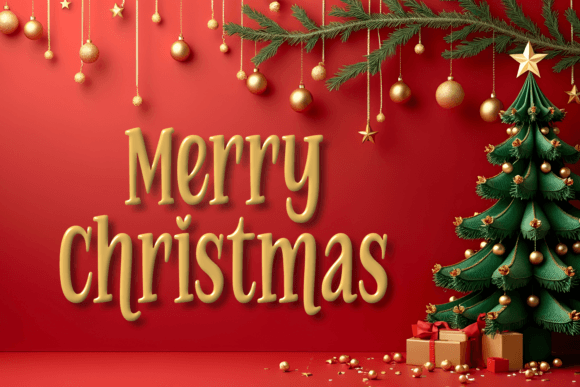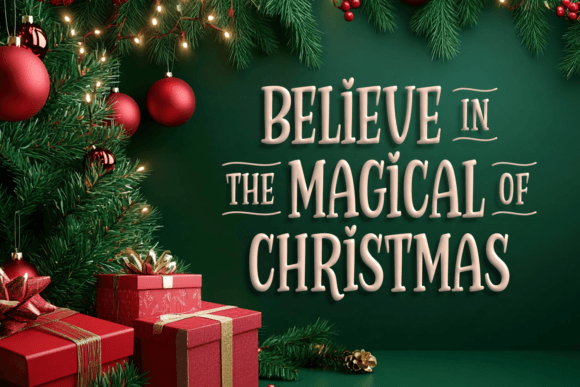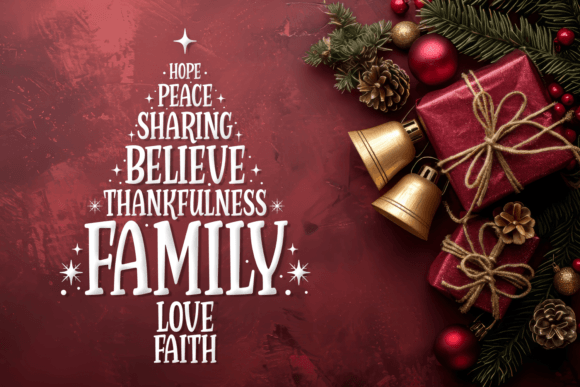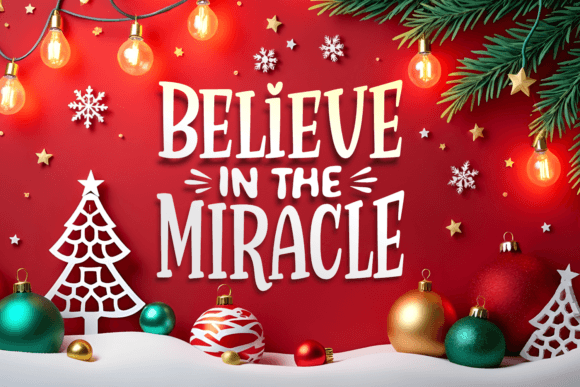
Introduction to Christmas Twinkles Font
Imagine you’re sitting by the fireplace, surrounded by twinkling lights, and a warm cup of hot cocoa in your hands. As you start designing your festive project, you stumble upon the perfect font – Christmas Twinkles Font. The moment you see its elegant, handcrafted serif design, you know that this is the perfect companion for your creative endeavor.
As a designer, you’re always on the lookout for high-quality design resources that can elevate your projects. That’s where Christmas Twinkles Font comes in – a beautifully crafted font that adds a sprinkle of joy and warmth to your creations. Whether you’re working on a heartwarming greeting card or an eye-catching headline, Christmas Twinkles Font is an indispensable design resource that’s sure to make your project stand out.
Key Features of Christmas Twinkles Font
- Unique and festive design perfect for creative projects and holiday-themed materials
- Perfect for use in digital designs, such as social media graphics, flyers, and posters, as well as print materials like invitations and cards
Honest Review: Christmas Twinkles Font
As a designer, I’m always on the lookout for high-quality design resources to elevate my creative projects. The Christmas Twinkles Font caught my attention with its playful and festive vibe. I decided to give it a try and see how it performs.
What works well: ✨ The font is super easy to use and has a transparent background, making it perfect for overlaying on top of images or other design elements. The font is also highly customizable, with a wide range of styles and sizes to choose from.
What doesn’t work so well: ⚠️ While the font is free to download, the quality is not as high as I would expect from a premium font. The characters are not as crisp and clean as I would like, and the font may not be suitable for large-scale designs or professional printing.
Overall impression: I would recommend the Christmas Twinkles Font for personal or small-scale design projects, such as social media graphics or holiday cards. However, for more complex or high-end projects, you may want to consider a more robust design resource.
- Perfect for personal or small-scale design projects
- May not be suitable for large-scale designs or professional printing
- Quality not as high as premium fonts
To get the most out of the Christmas Twinkles Font, use it in combination with other festive design elements, such as snowflakes, holly, and Christmas trees. You can also experiment with different font sizes and styles to create a unique and eye-catching design.
The Christmas Twinkles Font is perfect for creating festive invitations, greeting cards, and social media graphics. You can also use it to add a touch of festivity to your website or blog.